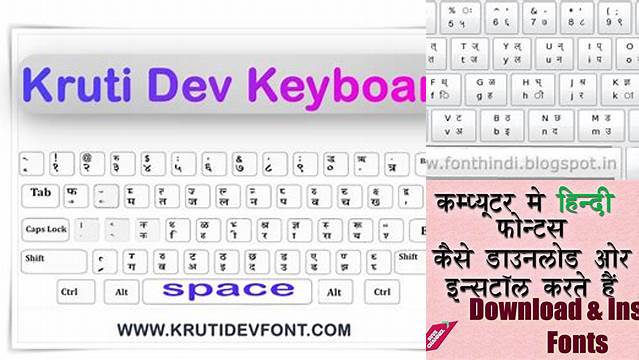
Hey guys! If you're on the hunt for a fantastic way to spice up your Windows 10 experience with the beauty of the Hindi language, you're in the right place. We're diving deep into the world of Kruti Dev Hindi Font Free Download for Windows 10, giving you the lowdown on everything you need to know. Get ready to transform your documents, creative projects, and even your social media posts with the elegance of Hindi script! I'll guide you step-by-step on how to grab this font, install it, and start using it like a pro. This guide aims to provide a comprehensive understanding of the Kruti Dev font, ensuring that you're well-equipped to navigate the process, avoiding common pitfalls, and making the most of your creative endeavors.
H2: Understanding Kruti Dev Font and Its Popularity
Alright, first things first, what exactly is Kruti Dev Hindi Font? In simple terms, it's a font specifically designed for the Hindi language. It's super popular in India and among Hindi speakers worldwide, and for good reason! This font has a unique style that captures the essence of the Hindi script, making your text look absolutely stunning. Its popularity stems from its ability to seamlessly integrate the complex nuances of the Devanagari script. The Kruti Dev font is more than just a visual element; it's a bridge to connect with the rich cultural heritage of the Hindi language. The widespread use of this font in various domains, from academic publications to creative designs, highlights its importance and the trust users place in it. When you choose Kruti Dev, you're not just selecting a font; you're embracing a legacy of design, accessibility, and cultural richness. This section aims to make it easier for you to understand the nuances and history of the font.
The appeal of Kruti Dev lies in its readability and aesthetic appeal. Its clear and distinct characters render the text effortlessly, enhancing the overall reading experience. Designers often choose this font because it allows them to convey a sense of cultural connection while keeping their designs modern and engaging. The history of Kruti Dev is a tale of innovation, starting from its inception to its evolution, adapting to the digital landscape. The creators of Kruti Dev carefully considered the stylistic and functional aspects of the font, ensuring it represents Hindi language in the best possible way. This focus on the character set enables a versatile range of expression. When creating documents, presentations, or designs in the Hindi language, Kruti Dev is often the go-to choice. Its presence across various platforms and devices is a testament to its design and the needs of a large user base. This helps make the language accessible for a wider audience.
H3: Key Features and Characteristics of Kruti Dev Font
Let’s dive into the features that make Kruti Dev Font stand out. One of the most critical aspects is its excellent rendering of the Devanagari script. This allows for perfect representation of each character and their combinations. Its design ensures that every letter, syllable, and word looks natural and beautiful. This font is made to represent the subtle variations in Hindi writing. Whether you're crafting a formal document or a creative project, the script looks professional. The availability of numerous versions is also great, as each one slightly adjusts the style and design of the script. These choices enable users to match the font to their project's style. The detailed character set encompasses all the letters, vowels, and special characters needed to write Hindi. It provides a perfect rendering of the Devanagari script, guaranteeing the highest level of readability. This helps you write the Hindi language in a clear and appealing way, whether it's a report, an article, or a social media post. The features of the Kruti Dev font help make sure the Hindi script looks good and is easy to read.
The font's versatility extends beyond simple text; it excels in headings, titles, and body text alike, ensuring visual consistency across your documents. Its ability to be easily customized to suit diverse design preferences. Its various weights and styles provide flexibility to suit different applications. The font's compatibility with a wide array of software platforms and operating systems enhances its appeal and accessibility. The ability to customize the font's size and spacing to fit specific layout needs and aesthetics is an advantage. This ensures that it is possible to cater to different project requirements. The design of Kruti Dev is tailored to the Devanagari script, which is the writing system used for Hindi. The characters are carefully shaped to flow smoothly and enhance readability. The meticulous design helps in creating documents that are easy on the eyes and visually appealing.